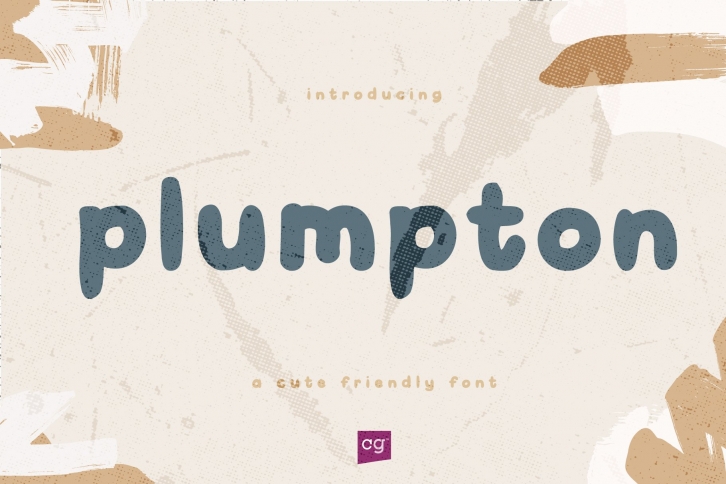
Plumpton is a round bubbly playful, child-like typeface bringing personality to your designs. Cute and Friendly font that is full of personality!
Plumpton is the kind of font you'll be reaching for over and over again. It pairs great with all sorts of styles and provides a clean, readable font, with a touch of fun. Also included are some doodles to help bring your projects to life. Plumpton can be used for personal or commercial projects, in logos, on items for purchase with unlimited sales, and can be turned into a web font.
Great for use as headings, banners, labels and for a bold statement. Both upper and lowercase letters are included in this font style, along with Alternates and even a range of shapes, arrows and designs, all with over 200 glyphs per font.